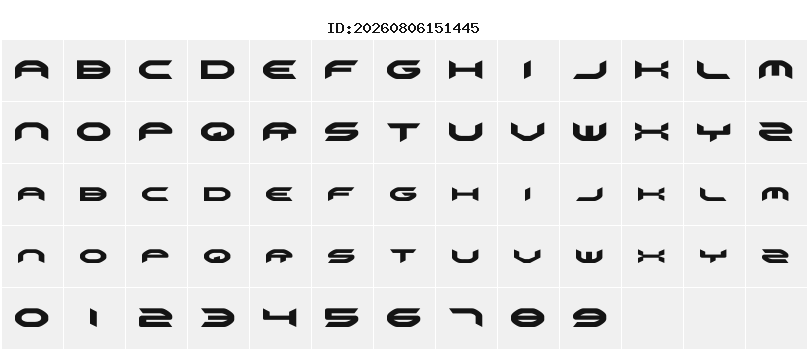
• Font Name: Omni Girl
• Font ID: Omni Girl
• Full Font Name: Omni Girl
• PostScript Name: Omni Girl
About Omni Girl.ttf
Omni Girl.ttf is a modern, elegant sans-serif font designed for ultimate readability and visual harmony. Perfect for branding, headlines, web design, and print materials.